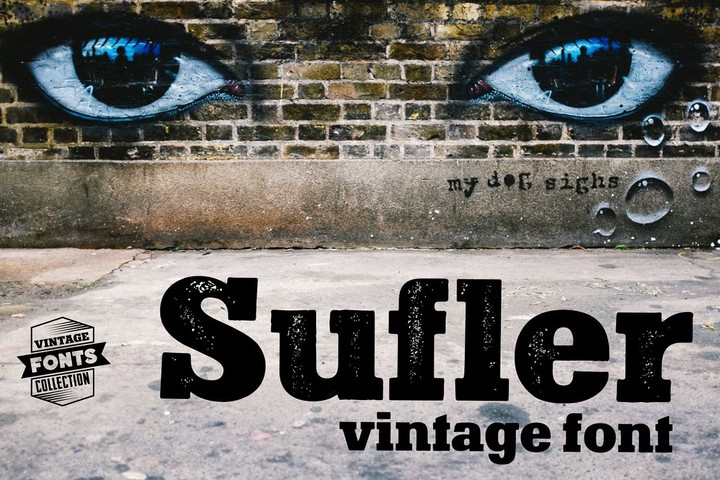
Sufler Font
Sufler Font is perfectly suited for theatrical productions, drama school materials, acting workshop promotions, stage performance programs, entertainment industry branding, dramatic literature covers, performing arts websites, theater festival posters, and professional acting academy marketing.
What makes Sufler Font so exciting is its sophisticated theatrical character and dramatic elegance that perfectly captures the essence of stage performance and dramatic arts with every carefully crafted letterform. This distinguished typeface embodies the refined tradition of theatrical excellence with its graceful proportions and subtle dramatic flair that evokes the golden age of stage performance and classical theater. The font's sophisticated character shapes and balanced design create an atmosphere of artistic professionalism and cultural refinement that resonates with audiences who appreciate the depth and beauty of dramatic arts. Sufler Font stands out through its ability to convey artistic sophistication, dramatic impact, and professional credibility, making it perfect for projects that need to establish authority in performing arts while creating elegant connections with audiences who value theatrical excellence and cultural enrichment.
The Sufler Font family includes Light, Regular, Medium, and Bold weights, each maintaining the font's distinctive theatrical character while providing design flexibility for various performing arts applications. The family also features elegant stylistic alternates and classical ligatures that enhance the font's dramatic appeal and provide comprehensive solutions for sophisticated theatrical design projects.
When you choose Sufler Font Free Download, you're selecting a typeface that brings authentic theatrical sophistication and dramatic elegance to your creative projects. This font excels in creating designs that need to convey artistic quality, professional credibility, and dramatic impact. Its refined theatrical appearance makes it particularly effective for performing arts organizations, drama schools, and entertainment industry brands that want to establish artistic authority while appealing to cultured audiences.
The technical excellence of Sufler Font includes an extensive character set with uppercase and lowercase letters, numerals, punctuation marks, and theatrical symbols that maintain the font's sophisticated character. The font has been meticulously designed to ensure optimal performance across both digital and print applications while preserving the elegant details that give it its distinctive theatrical character and professional appeal.
Whether you're designing for theater companies, creating performing arts marketing materials, developing drama education resources, or crafting designs that require dramatic sophistication and artistic credibility, Sufler Font delivers the perfect combination of theatrical elegance and contemporary functionality that makes your projects resonate with audiences seeking refined cultural experiences and professional artistic excellence.